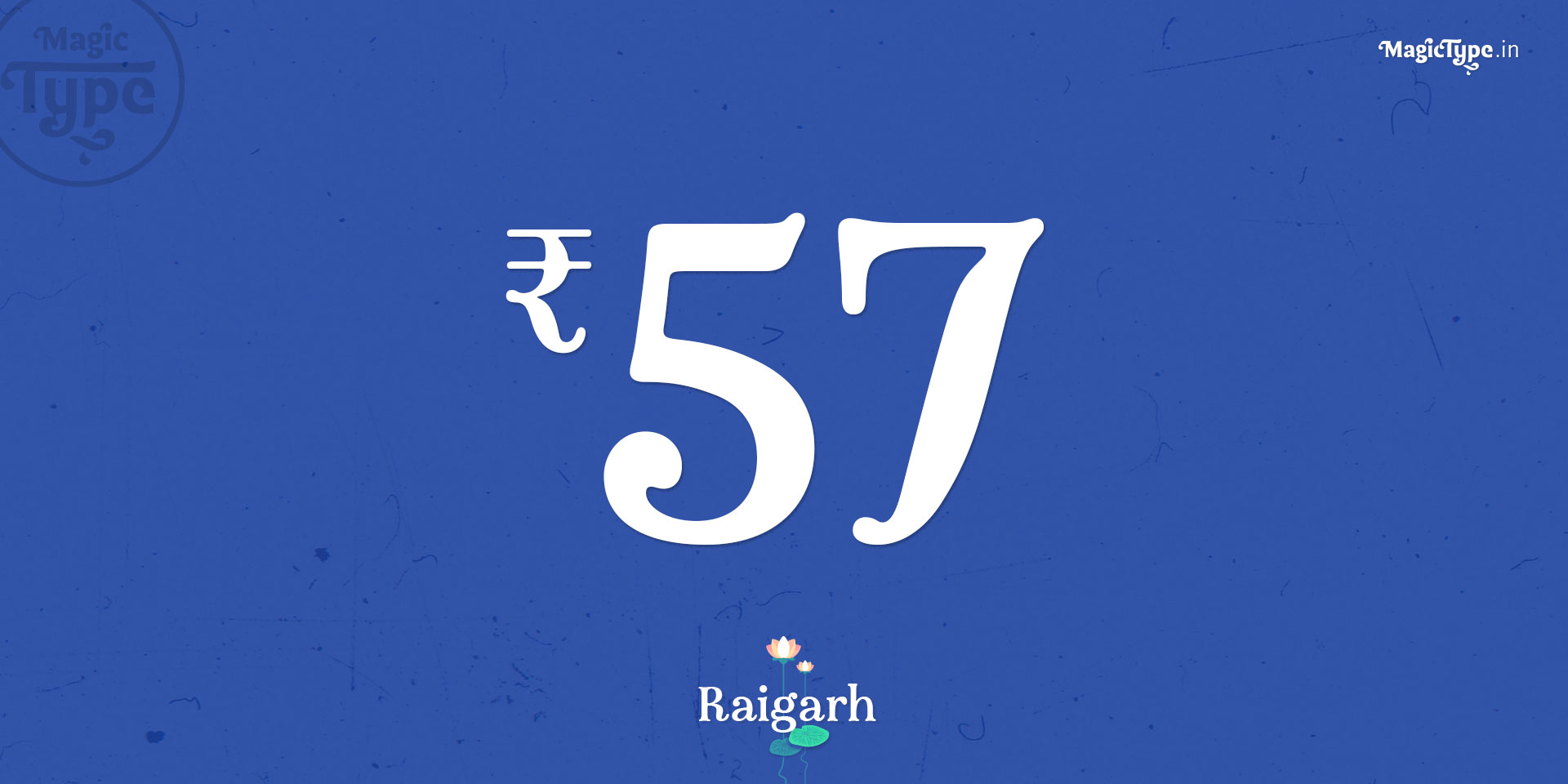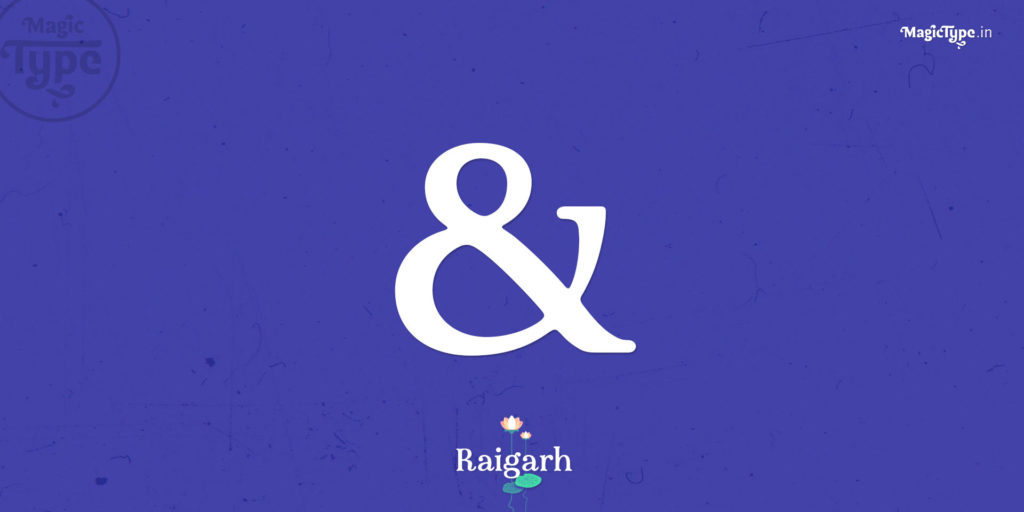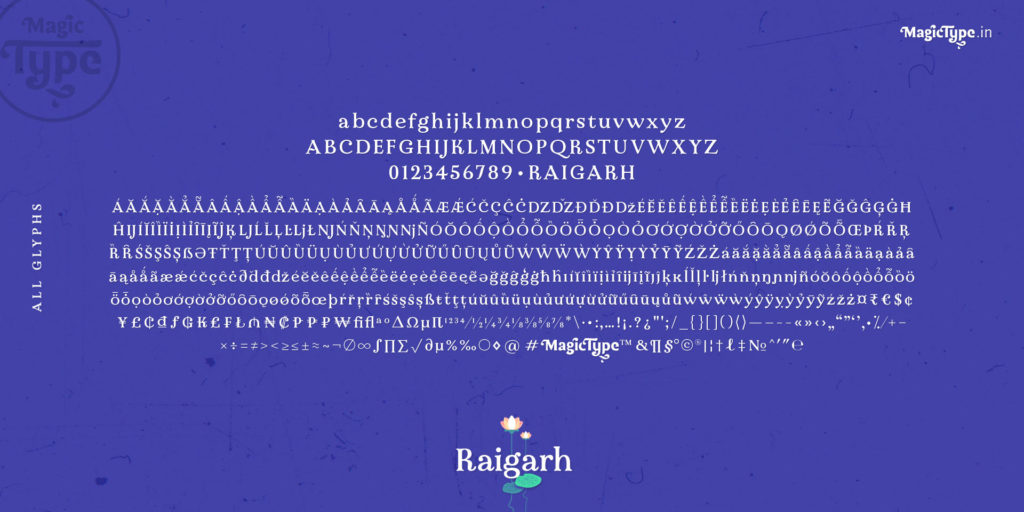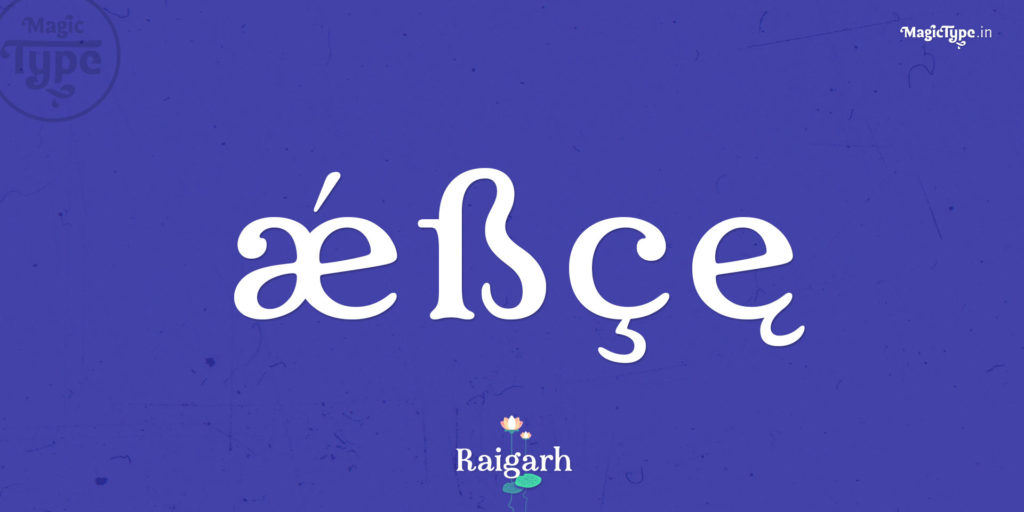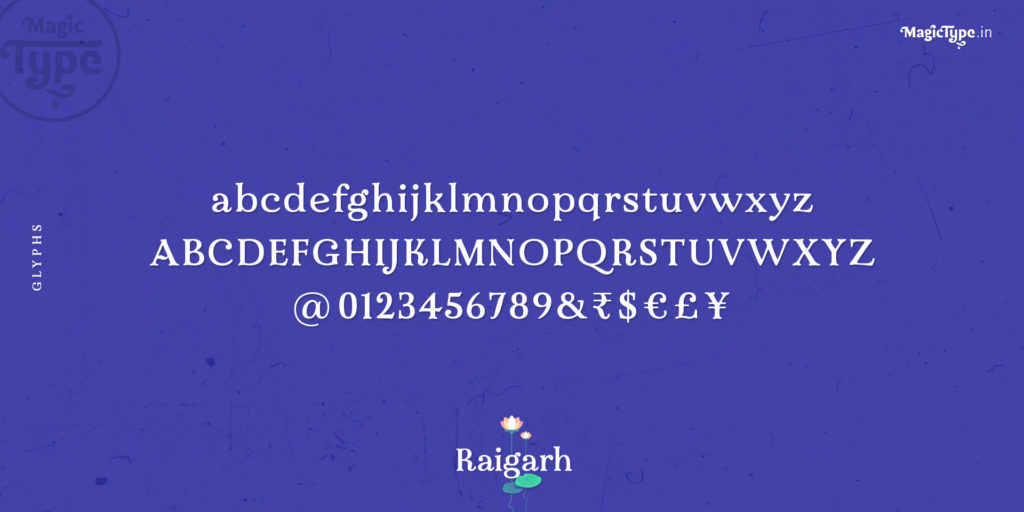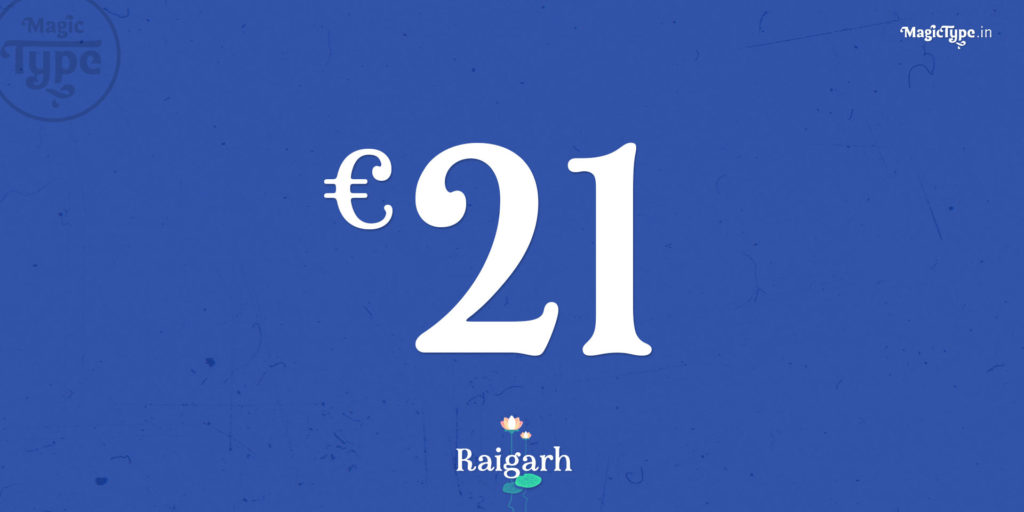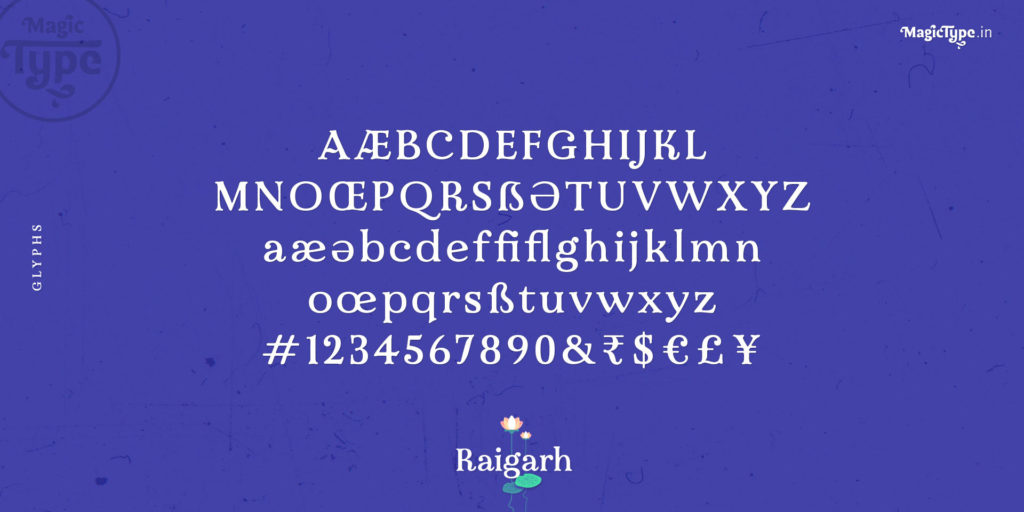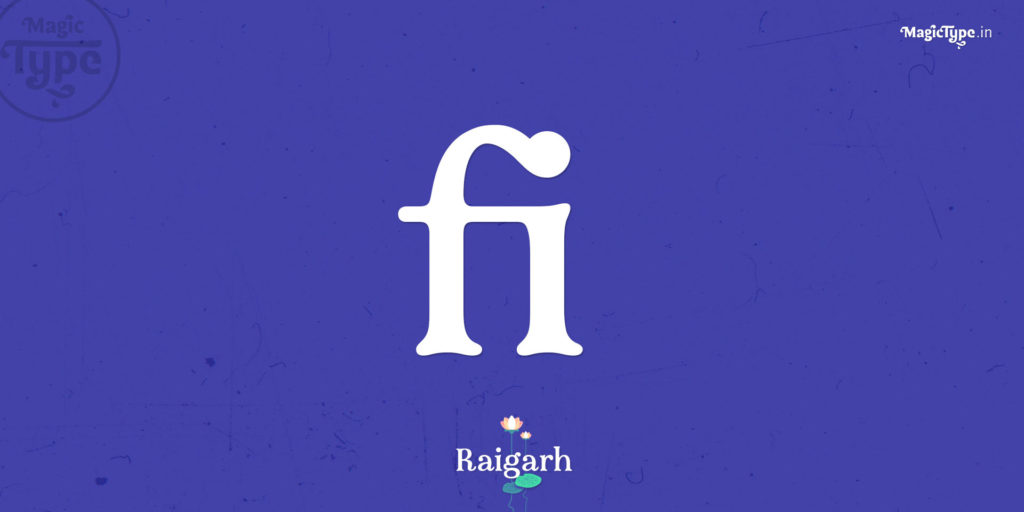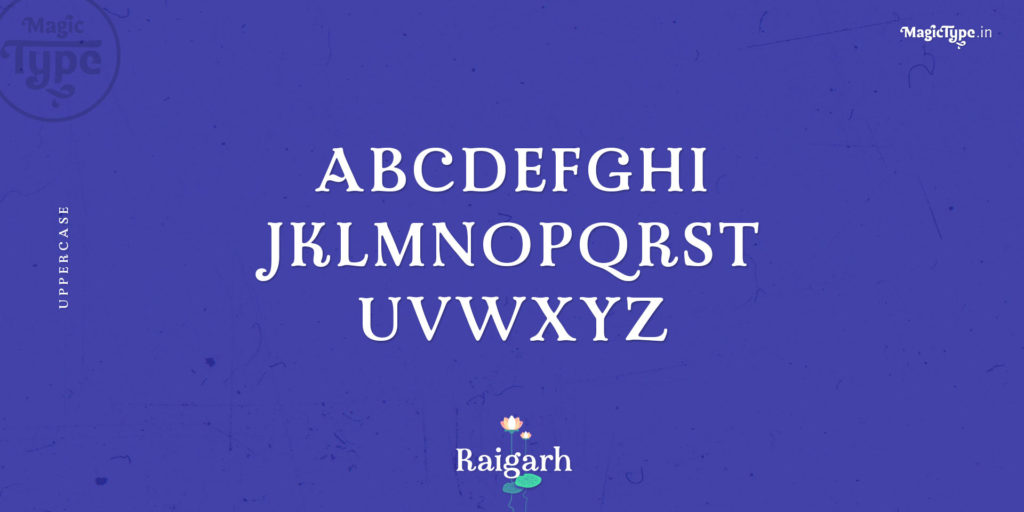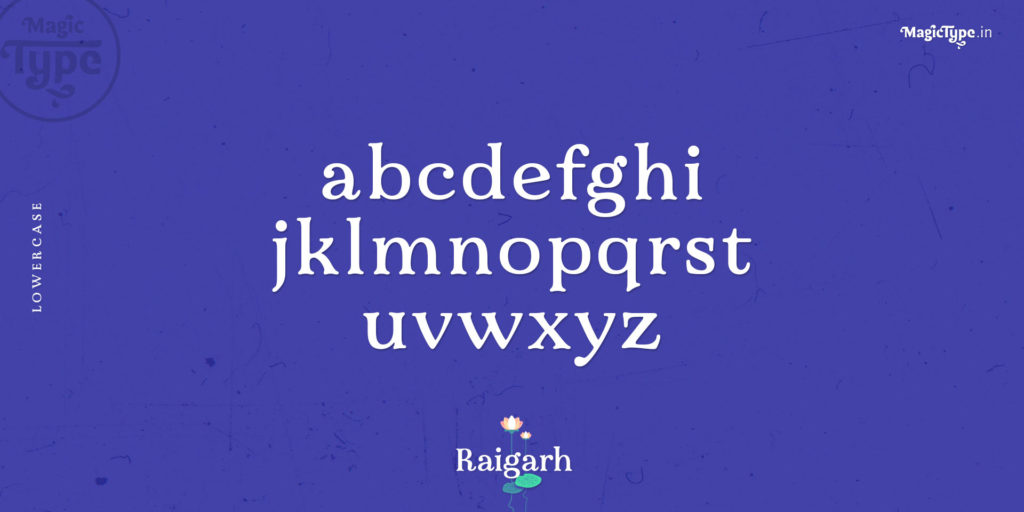
All great stories look as simple as the ugly real world when they happen. It's only when I open my eyes, I realise how beautiful it was. Like a dream. Not just because it was beautiful, but also for the fact that I can't go back there. I may realise how desperate I am to go back there when I see it fading away. But it became vintage in no time and left me wondering about watching myself like a history. Like a story.
Raigarh : Latin Display typeface | Genre: Royal, Drama, History, Classical, Period Drama, Fantasy | Designed by Jaikishan Patel
The Type Family
The font family consists of 5 weights; light, regular, medium, bold and black. It features over 640 precisely crafted glyphs, with standard and discretionary ligatures, mathematical features, currency symbols, ordinals, fractions, accents, alternative glyphs and other OpenType features.